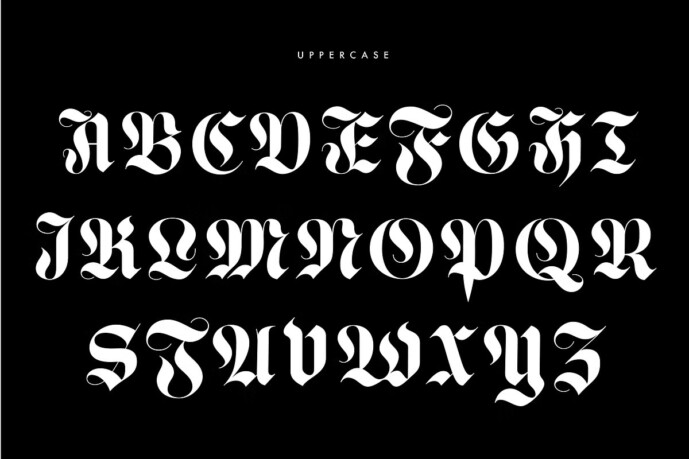
Luxus Gothic Font
Designer: Drew Melton
Luxus Font has been in the works for quite some time now. I became interested in blackletter while designing an ornate album cover (Coming soon to the portfolio). I realized there was a lot more to the blackletter style than I had realized so I started to dive deeper.
Luxus is the result.
My favorite projects are born of creativity and curiosity. Lexus is classically beautiful which makes it ideal for use on luxury products such as perfume or wine labels. In addition, there are 50 unique flourish glyphs (also included as vectors) for when you need a special touch. As always I’m continuing to learn and grow so be sure to look out for updates and new font packs based on this style.